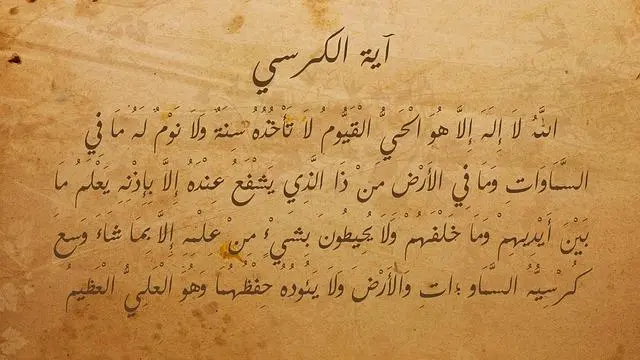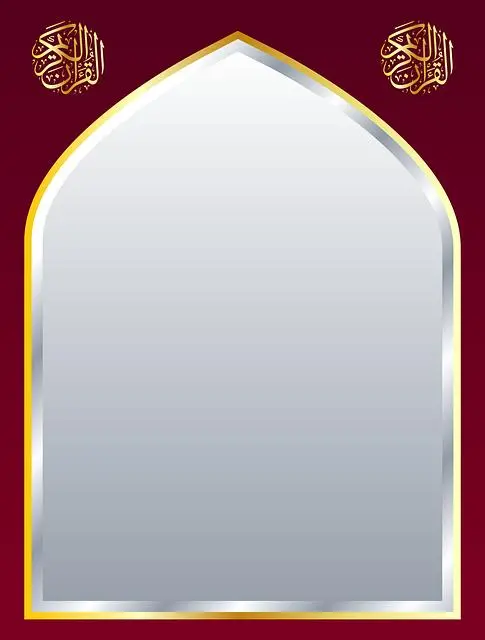
Arabic Font for Canva: Authentic Middle Eastern Calligraphy for Your Designs
Are you tired of using the same old fonts for your designs on Canva? Why not spice things up with some authentic Middle Eastern calligraphy? Arabic font can add a unique and elegant touch to your creations, giving them a truly one-of-a-kind look. In this article, we will explore how you can incorporate Arabic font into your Canva designs to make them stand out in the crowd. Let’s dive in and discover the beauty of Arabic calligraphy together!
Introducing Arabic Fonts for Canva Designs
Are you looking to add a touch of elegance and culture to your designs? Look no further! We are excited to announce the launch of Arabic fonts on Canva, allowing you to incorporate the beauty and uniqueness of Arabic calligraphy into your projects effortlessly. With a wide range of stunning Arabic fonts to choose from, you can now create visually appealing designs that stand out and make a statement.
Whether you are designing social media graphics, promotional materials, or personal projects, our collection of Arabic fonts will allow you to add a touch of sophistication and authenticity to your work. From traditional to modern styles, you can find the perfect font to complement your design aesthetic and convey your message effectively. Say goodbye to boring fonts and elevate your designs with the beauty of Arabic script. Start exploring our Arabic fonts today and take your designs to the next level!
Exploring the Beauty of Middle Eastern Calligraphy
Middle Eastern calligraphy is a mesmerizing art form that dates back centuries, characterized by its intricate designs and flowing script. The beauty of Middle Eastern calligraphy lies in its rich history, cultural significance, and the skill and precision required to create each piece. This art form is not only visually stunning but also holds deep meaning and symbolism, often used to convey religious texts or poetic verses.
One of the most striking aspects of Middle Eastern calligraphy is the way artists play with shapes, sizes, and styles to create visually appealing compositions. Each stroke of the pen is carefully considered and executed, resulting in a harmonious balance of form and function. Many different scripts are used in Middle Eastern calligraphy, each with its own unique characteristics and rules. Some of the most popular scripts include Naskh, Thuluth, and Diwani, each offering a different aesthetic and cultural significance. Through these scripts, artists are able to express emotions, convey messages, and capture the essence of the Arabic language in a truly captivating way.
Choosing the Right Arabic Font for Your Design Needs
When it comes to choosing the perfect Arabic font for your design needs, there are several factors to consider that can make a significant impact on the overall aesthetic and readability of your project. One key consideration is the style of the font itself. Whether you’re looking for a traditional or modern look, it’s important to select a font that complements the overall design theme. Some popular Arabic font styles include Naskh, Nastaliq, and Kufic, each offering a unique and distinct appearance.
Another important factor to keep in mind is legibility. Ensure that the Arabic font you choose is easy to read, especially when used in smaller sizes or across various platforms. Additionally, consider the weight and spacing of the font to ensure optimal readability. Lastly, don’t forget to test out different Arabic fonts in your design to see how they interact with the overall layout and visual elements. By carefully selecting the right Arabic font, you can enhance the impact and effectiveness of your design projects.
Tips for Enhancing Your Designs with Authentic Arabic Typography
When incorporating Arabic typography into your designs, it’s essential to pay attention to the details that will make your work stand out. Utilizing authentic calligraphy styles can bring a unique flair to your projects. Consider exploring traditional Arabic script such as Naskh, Thuluth, or Diwani for a more authentic touch. These styles can add an element of elegance and sophistication to your designs.
Another way to enhance your designs is by paying close attention to the alignment and spacing of your text. Arabic typography is known for its intricate and flowing nature, so be mindful of the balance and harmony between your text and other design elements. Utilize different font sizes and styles to create a dynamic and visually appealing composition. Experiment with **bold** and italicized fonts to emphasize certain words or phrases, adding depth and interest to your designs.
Mixing and Matching Arabic Fonts for a Unique Design Aesthetic
To Conclude
Adding Arabic calligraphy fonts to your designs in Canva can bring an authentic Middle Eastern touch, enhancing your visual creations. Try it out today!